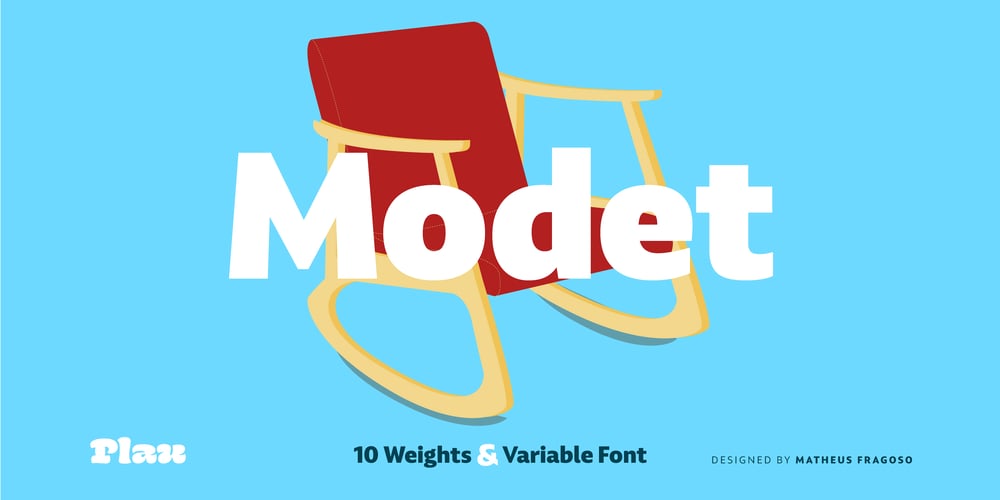
Modet Font Family was designed by Matheus Fragoso and published by Plau. Modet contains 10 styles and family package options. Modet is a versatile and friendly humanist sans-serif prepared for all typographic tasks. It is quite readable in smaller sizes and shows its character in larger sizes.You can change the face of Modet through its many alternate characters and OpenType features. This versatility makes it a great performer in editorial and branding projects.Modet comes in 10 roman styles, from thin to ‘ultra black’ and speaks 289 languages.